Old English Font Generator
An Old English font generator turns text into a medieval look through blackletter styling, Unicode, and each distinct character. In practice, I use this online tool to test styles, compare readability, then copy finished text.
For designers, the generator is less about installing font files and more about producing decorative text quickly. I use a phrase, review the preview, and adjust the font style until the lettering feels natural and usable.
Key Takeaways
The most useful Old English fonts balance historical character with practical readability. I usually test Classic Old English on real text first, because thick vertical strokes and ornate detailing can quickly overwhelm a crowded layout.
For Gangster Style work, restraint matters more than decoration. Bold Old English, heavier weight, and short names suit logos and headlines, while a clean phrase preserves impact, legibility, and recognizable blackletter character in practical projects.
How To Use The Old English Font Generator
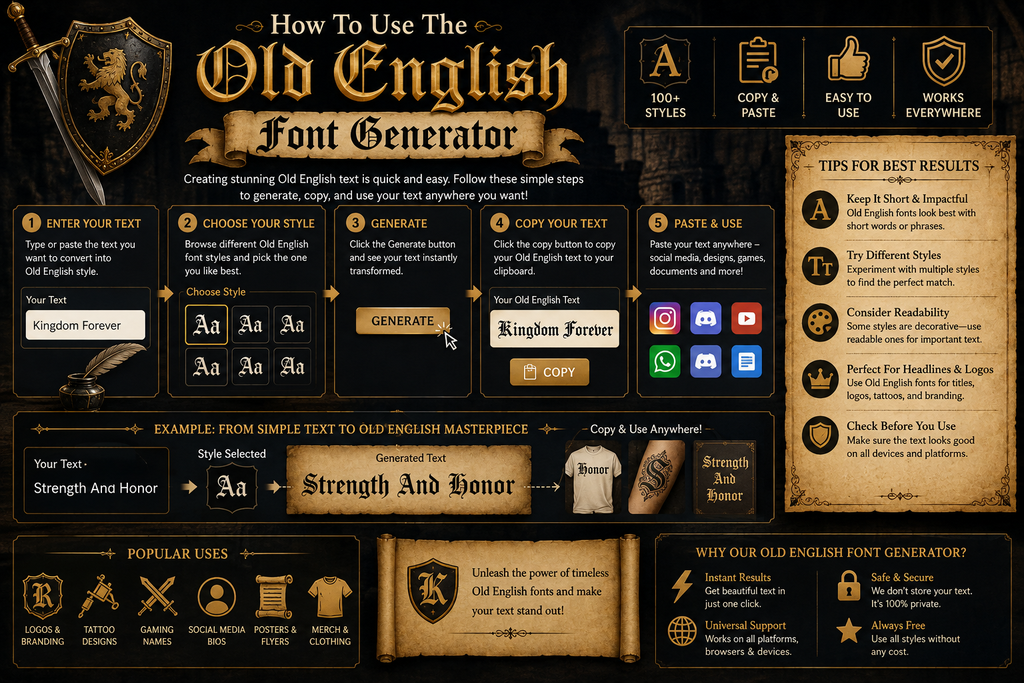
Open the generator, enter your wording in the input box, and choose an Old English style. The preview updates in real time, letting you compare character shapes before you copy the finished text for sharing.
For practical use, test the result across Instagram, Discord, or other platforms, then adjust the style when characters render poorly. I usually copy, paste, check readability, and keep the version that looks balanced for sharing.
Creative Uses For Old English Text
Old English text can sharpen streetwear graphics, especially when a designer wants historical weight without adding clutter. I often use it for logo-style text, album artwork, posters, and profile visuals where dense letterforms create recognition.
For personal projects, tattoo aesthetics work well when names or short phrases need a dramatic edge. Experimenting with Chicano lettering can also produce distinctive compositions, provided spacing, readability, and the surrounding design remain carefully controlled.
Why Use Our Old English Font Generator?
Our Old English Font Generator turns typed words into blackletter character styles, making experimentation faster across bios, captions, usernames, and posts. I value its quick copy-paste text workflow because it keeps design exploration practical online.
From classic lettering to bold blackletter and Gangster Old English Font variations, the tool helps test phrases, initials, and names before publishing. Unicode output also suits Instagram, Discord, TikTok, and WhatsApp when platforms support characters.
Old English Font Generator — Copy And Paste Anywhere
Old English Unicode lets a finished phrase travel beyond a generator, while plain copy-paste text keeps the chosen style usable in Instagram bios, captions, Discord usernames, documents, and creative layouts without installing fonts anywhere reliably.
From my testing, paste works best when the destination can render the characters correctly; platforms may handle them differently, so switch to a simpler variant when boxes appear, especially across apps and devices in practice.
Old English Fonts For Tattoos
Before planning a tattoo, preview the chosen Old English lettering at full size. Compare styles, test exact wording, and check how each letter will sit against skin curves; scales cleanly matters when details age later.
A name, date, or quote needs spacing, so I prefer discussing design with a tattoo artist before ink is applied. A proper Old English font file helps the artist recreate intricate forms for lasting wear.
Things To Know Before You Paste
Before you paste Old English text, check whether the platform preserves Unicode characters. I test display names, comments, and channels first, because some apps support only specific Unicode character sets, leaving plain text there instead.
For reliable copy and paste, verify servers, comments, and messages after posting. Keep your wording short when ornate characters fail, then Switch styles or choose a different Old English variant that characters stick consistently online.
A Short History Of Old English Type
Across 1000 years, script styles changed as old English language moved from manuscripts toward print, with Textualis establishing dense letterforms. Its calligraphic form later influenced blackletter traditions used for formal display and headings in Europe.
By print culture, Schwabacher and Fraktur refined the visual vocabulary, while William Caslon later inspired revival work through Caslon Black. I often see this lineage reflected in modern tools seeking an engraving look for character.
Tips For The Best Results
For best results, begin with Letters only and choose a readable Old English style before adjusting the size. I usually test contrast first, because dense blackletter can lose fine details when characters become too ornate.
These Old English fonts work well beyond profiles: use them in Text-to-image graphics, image posts, print materials, or a Word document when historical character matters, especially for titles, covers, labels, and creative layouts.
What’s The Difference Between Old English, Blackletter, And Gothic?
Blackletter is the broad style family; Gothic script describes historical forms, while Fraktur names a particular angular tradition. Old English is often a modern label for this historical character, emphasizing display lettering in practice today.